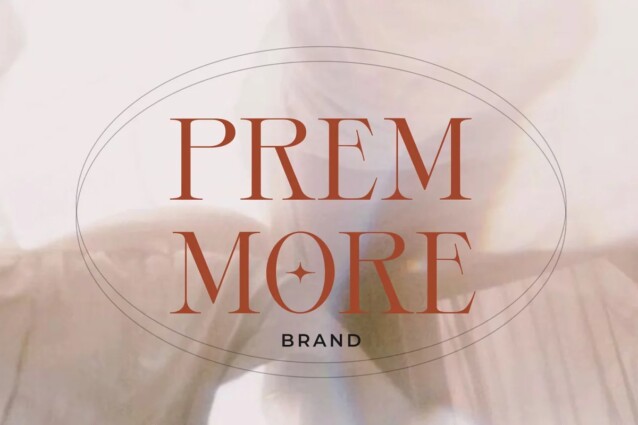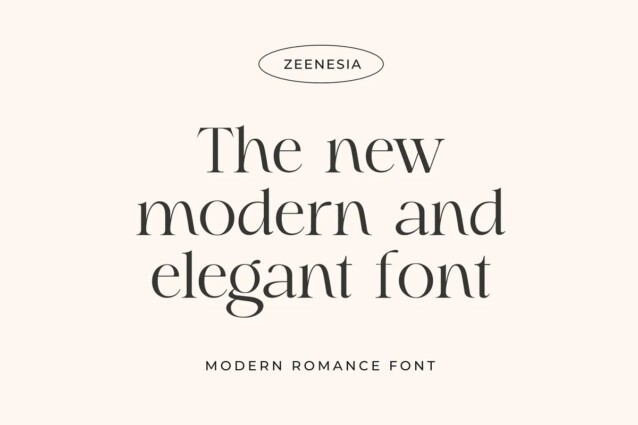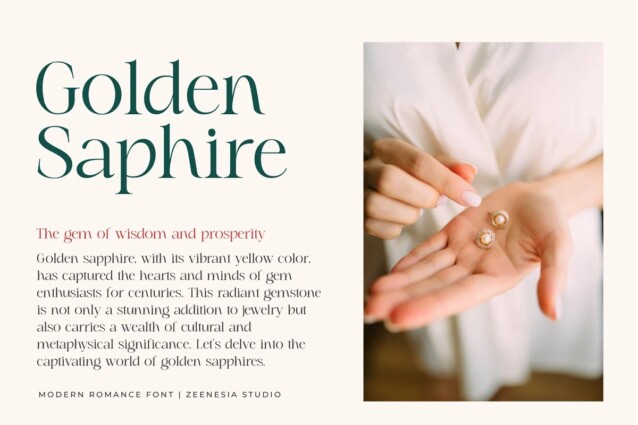
Modern Romance Font
Modern Romance Font is ideal for creating your creative projects on similar subjects with its gloomy and modern gothic stance. It’s a very versatile font that works great in large. Whether you’re using it for business project, digital design, presentations, or making greeting cards, this font has the potential to become your favorite go-to font, no matter the occasion!